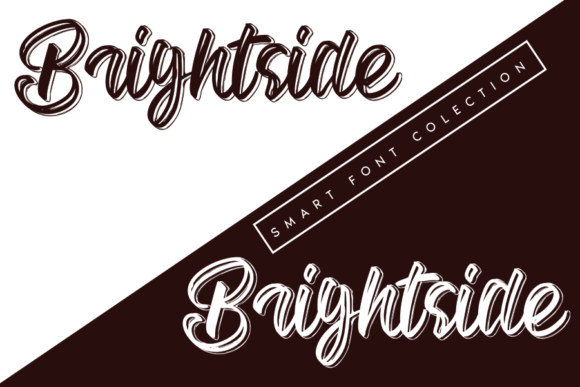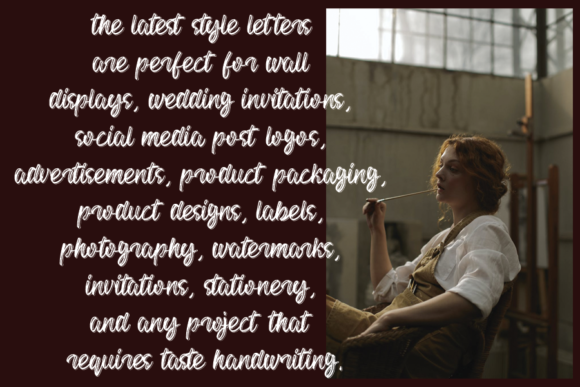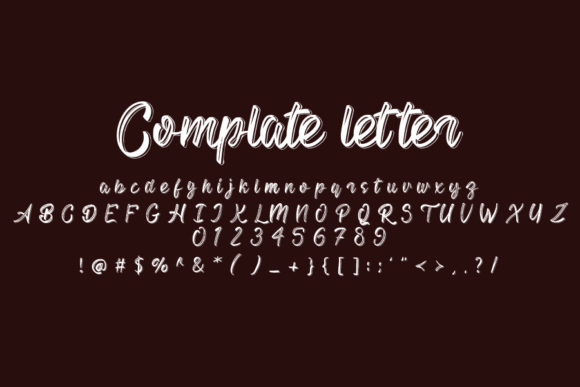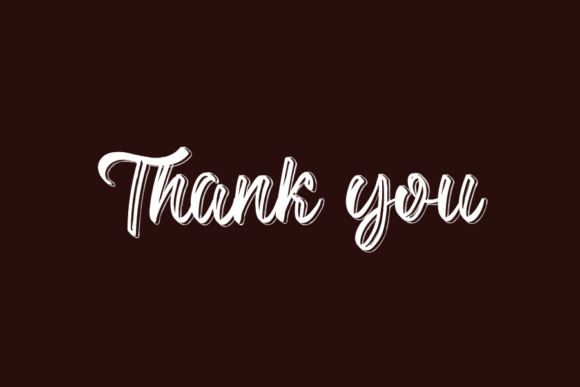
Brightside Font
About Brightside Font
Brightside sounds like a delightful handwritten font that can add a touch of friendliness and creativity to various design projects. Its casual and cute style makes it versatile and suitable for a wide range of applications. Here are some specific ways you can make the most of Brightside’s characteristics in your design work:
1. Social Media Graphics: Use Brightside to create engaging and eye-catching graphics for Instagram, Facebook, Twitter, and other social media platforms. Its friendly feel will help attract attention and connect with audiences.
2. DIY Projects: Incorporate Brightside in various DIY craft projects, such as handmade cards, gift tags, and personalized gifts, to add a warm and approachable touch.
3. Quote Graphics: Design beautiful quote graphics using Brightside’s calligraphy script style. Share inspirational or motivational quotes with a creative and artistic flair.
4. Branding: Utilize Brightside in branding materials, such as logos, packaging, and business cards, to give a friendly and approachable personality to the brand.
5. Invitations and Greeting Cards: Create charming and heartfelt invitations, thank-you cards, and greeting cards using Brightside’s handwritten charm.
6. Blog Graphics: Use Brightside in blog post graphics and featured images to enhance the overall visual appeal of your blog posts.
7. Art Prints: Design art prints featuring cheerful and positive messages using Brightside’s cute and casual lettering.
8. Flyers and Posters: Apply Brightside in flyers and posters to promote events, workshops, or small businesses with a friendly and artistic touch.
9. Personalized Gifts: Use Brightside to add personalized messages or names to gift items, making them even more special and heartwarming.
10. DIY Wedding Stationery: Incorporate Brightside in DIY wedding invitations, place cards, and menus to create a warm and welcoming atmosphere for the celebration.
11. Scrapbooking: Enhance your scrapbook pages with Brightside’s handwritten elements to document memories and stories in a charming way.
12. Product Packaging: Apply Brightside to product packaging for handmade or artisanal products to showcase the personal and creative aspect of the brand.
13. Children’s Book Illustrations: Use Brightside’s friendly and playful style for children’s book illustrations, adding a sense of warmth and joy to the storytelling.
14. Online Course Materials: Incorporate Brightside in online course materials, worksheets, and handouts to make learning experiences more engaging and appealing.
15. Personal Branding: Use Brightside in personal branding materials, such as personal websites or email signatures, to showcase your creativity and approachability.
16. Craft Workshops: Apply Brightside’s cheerful style in promotional materials for craft workshops and creative events to attract participants.
17. Recipe Cards: Design recipe cards using Brightside’s handwritten font to add a personal touch to your favorite recipes.
18. Cafe Menus: Use Brightside in cafe menus or chalkboard displays to create a welcoming and inviting atmosphere for customers.
19. Party Invitations: Create fun and cheerful party invitations using Brightside’s cute and casual lettering.
20. Custom Quotes: Offer custom quote designs using Brightside’s calligraphy script for clients seeking personalized and artistic pieces.
The cute and casual style of Brightside, combined with its friendly feel, makes it a versatile and charming font for various design projects. Its ability to turn any creative idea into a piece of art ensures it can add a special touch to your designs and connect with audiences on a personal level.